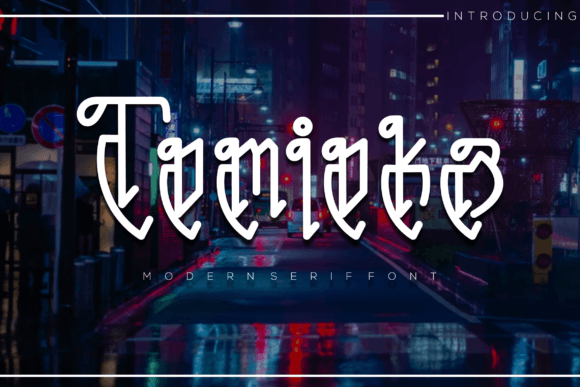
How Tomioka Transforms Small Business Branding
I still remember the exact moment I realized my bakery's packaging wasn't doing our pastries justice. We had spent months perfecting our sourdough recipe and sourcing the finest local flour, yet when a customer held our box, it felt generic. The label looked like something I had thrown together in a hurry using default settings. That afternoon, while searching for a way to elevate our visual identity without hiring an expensive agency, I stumbled across Tomioka, a serif display font that immediately caught my eye. As someone who relies on high-quality Fonts to communicate the warmth and craftsmanship of my brand, finding a unique Display typeface felt like discovering a secret ingredient for my business visuals.
Why Tomioka Stands Out for Product Packaging
When you are running a small shop, every detail on your shelf matters, and Tomioka brings a level of sophistication that standard system fonts simply cannot match. This incredibly unique and interesting serif display font adds character to any project, making it perfect for product labels where personality is key. Imagine printing a new batch of stickers for your handmade candle jars or designing tags for a boutique clothing line; using Tomioka instantly signals to the customer that care went into the design. Unlike bland sans serif options that can feel too corporate or cold, this typeface offers a classic yet modern vibe that feels inviting and trustworthy. For business owners looking to upgrade their packaging design, swapping out old lettering for Tomioka is a low-cost, high-impact change that makes products look premium and ready for retail shelves.
Elevating Social Media Graphics with Unique Typography
In the digital world, you only have a split second to stop a scroll, and your choice of Fonts plays a massive role in that first impression. I started using Tomioka for my Instagram story highlights and promotional posts, and the difference in engagement was noticeable almost immediately. Because Tomioka is a distinct serif display font, it creates a strong visual hierarchy that draws the eye to headlines and key announcements without needing loud colors or cluttered graphics. Whether you are a coach creating quote cards, a café owner posting daily specials, or an online seller launching a new collection, this font helps your social media graphics feel consistent and professional. It works beautifully as a headline font, allowing you to pair it with a clean, simple body text to ensure readability on mobile screens while maintaining that elegant aesthetic.
Creating a Memorable Logo and Brand Identity
Your logo is the face of your company, and choosing the right typeface is often the most critical decision in the branding process. Tomioka offers a versatility that makes it an excellent candidate for logo design, especially for businesses that want to appear established yet approachable. The unique curves and sharp serifs of this font give it a personality that feels both timeless and fresh, which is exactly what modern consumers are looking for. When I redesigned my menu boards, I used Tomioka for the section headers, and customers immediately commented on how "polished" the café looked. This kind of positive feedback is what happens when you invest in quality design assets; it tells your audience that you take your craft seriously. For entrepreneurs building a brand from scratch, starting with a strong foundation like Tomioka ensures that your visual identity remains cohesive across business cards, websites, and merchandise.
Practical Tips for Pairing Tomioka in Your Designs
One of the best things about working with a characterful serif display font like Tomioka is how well it plays with other styles to create balanced compositions. To get the most out of this font, try pairing it with a minimalist sans serif font for body text; this contrast ensures that your important information remains easy to read while the headlines steal the show. If you are designing wedding invitations or luxury beauty labels, Tomioka also pairs wonderfully with delicate script fonts to add a touch of romance and flair. However, remember that because Tomioka is a display font, it shines brightest in short phrases, titles, and logos rather than long paragraphs. Use it to highlight your brand name on a website banner or to emphasize a sale price on a flyer. By keeping the usage focused on display text, you maintain the impact and legibility that make this font so special.